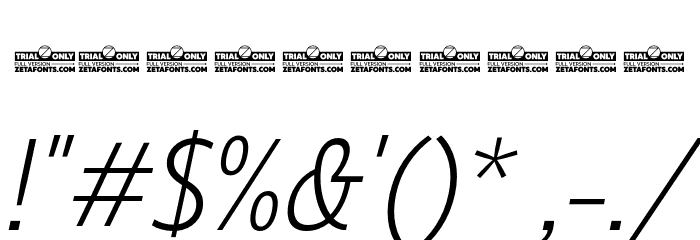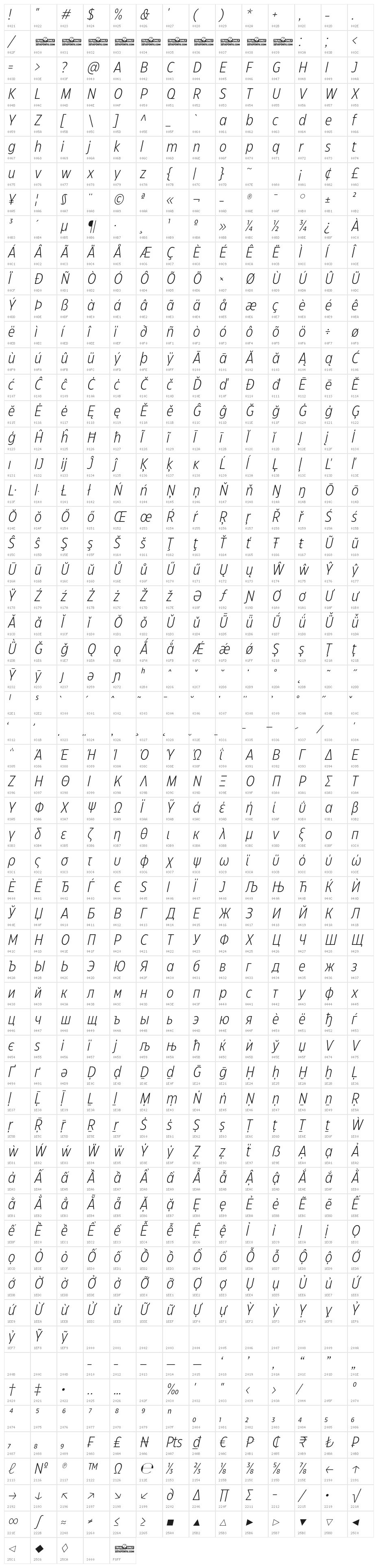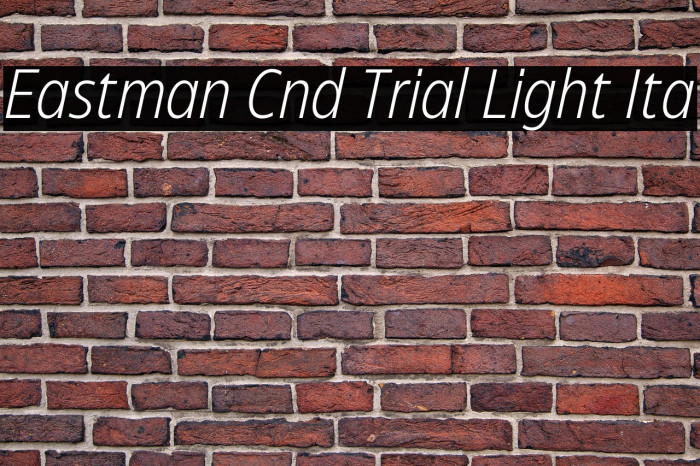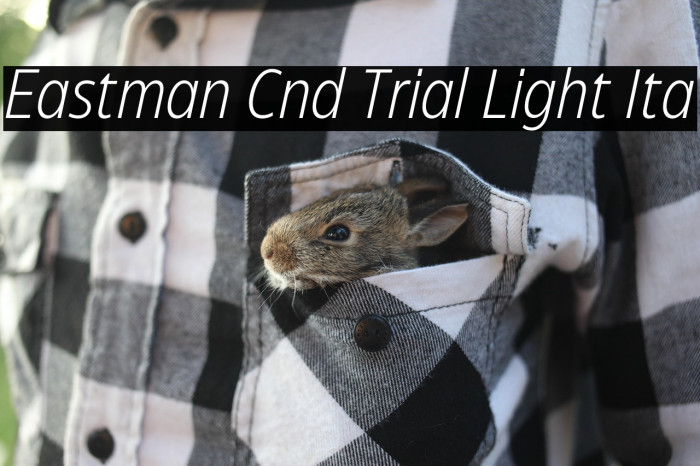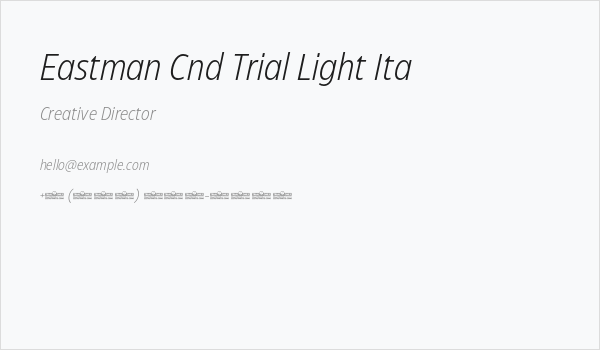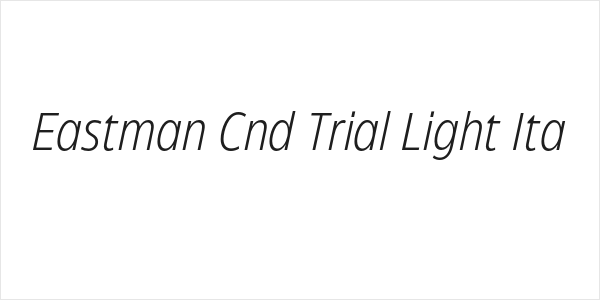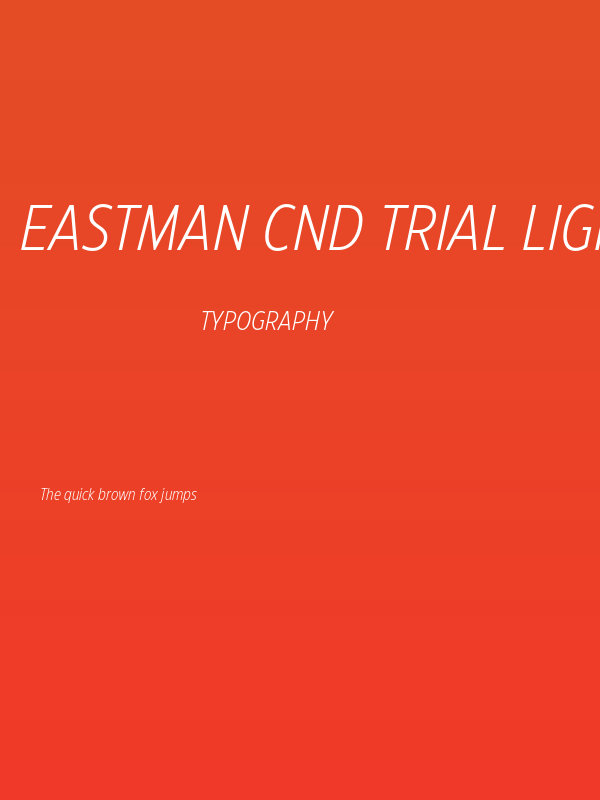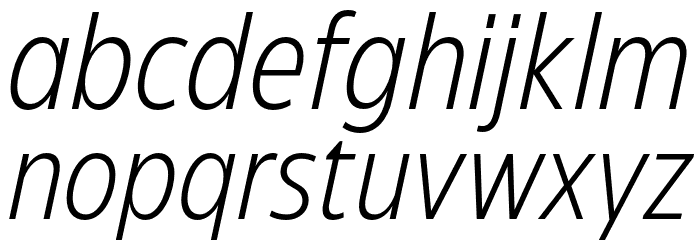
Eastman Cnd Trial Light Ita Font
Eastman Cnd Trial Light Ita Description
This font features a sleek and modern design with a condensed structure that emphasizes clarity and readability. The characters are slightly italicized, giving a dynamic and forward-moving appearance. The strokes are light, contributing to an airy and elegant feel. The uppercase and lowercase letters maintain a consistent style, with smooth curves and clean lines. The numerals and special characters are designed to match the overall aesthetic, ensuring a cohesive look across all text elements. This font is ideal for projects that require a contemporary and professional touch.
| Proposed Projects | Ideal for branding, editorial design, web design, and advertising where a modern and professional look is desired. |